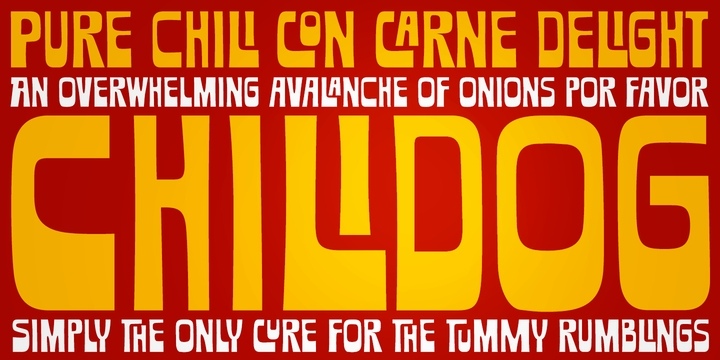
Chilidog PB Font
The Chilidog PB Font is a fun, quirky, and bold typeface that brings a playful, energetic, and slightly retro feel to any design. Its thick, rounded letterforms and friendly aesthetic make it a perfect choice for a wide variety of creative projects. This font is excellent for children's books, toy packaging, branding for family-friendly businesses, and eye-catching social media graphics. The Chilidog PB Font's unique character makes it a favorite among designers looking to add a sense of joy, approachability, and lightheartedness to their work.
What makes the Chilidog PB Font so exciting is its ability to instantly create a welcoming and friendly atmosphere. The robust and charming characters give your design a feeling of fun and innocence, making your message resonate with audiences of all ages. This is the font you choose when you want to inspire creativity, spark a smile, and make a bold, unforgettable statement that feels both genuine and playful.
The Chilidog PB font family is designed for maximum impact, providing a complete set of uppercase letters, numbers, and punctuation. While it's primarily a display font, its clean structure ensures excellent readability, making it a versatile tool for creating dynamic compositions. This full-featured family gives you all the tools you need to create a cohesive and powerful design.